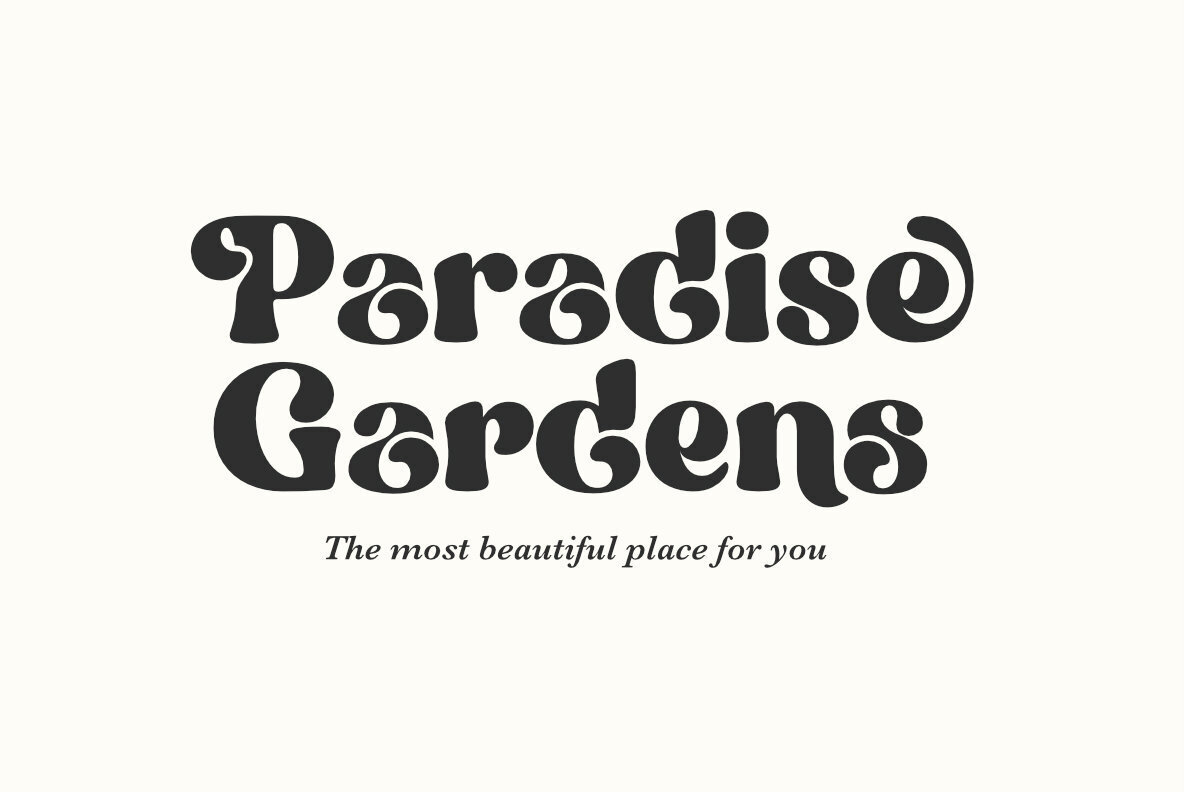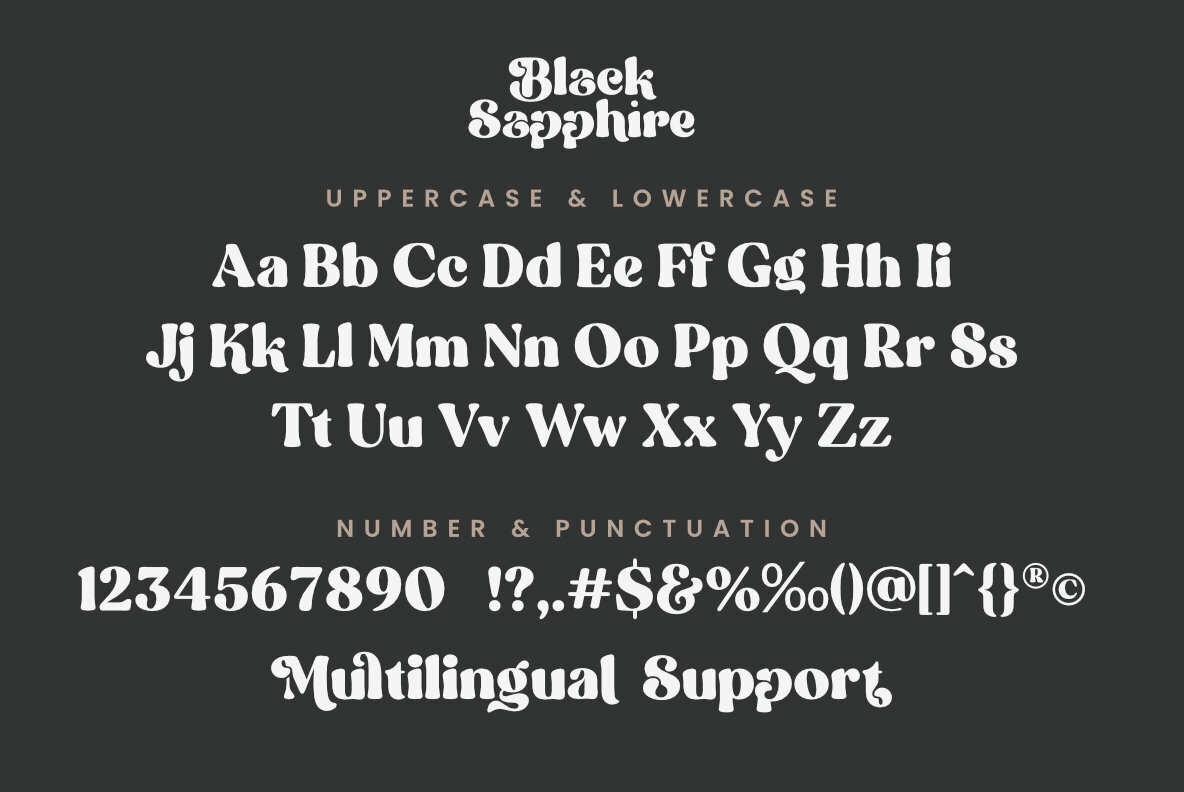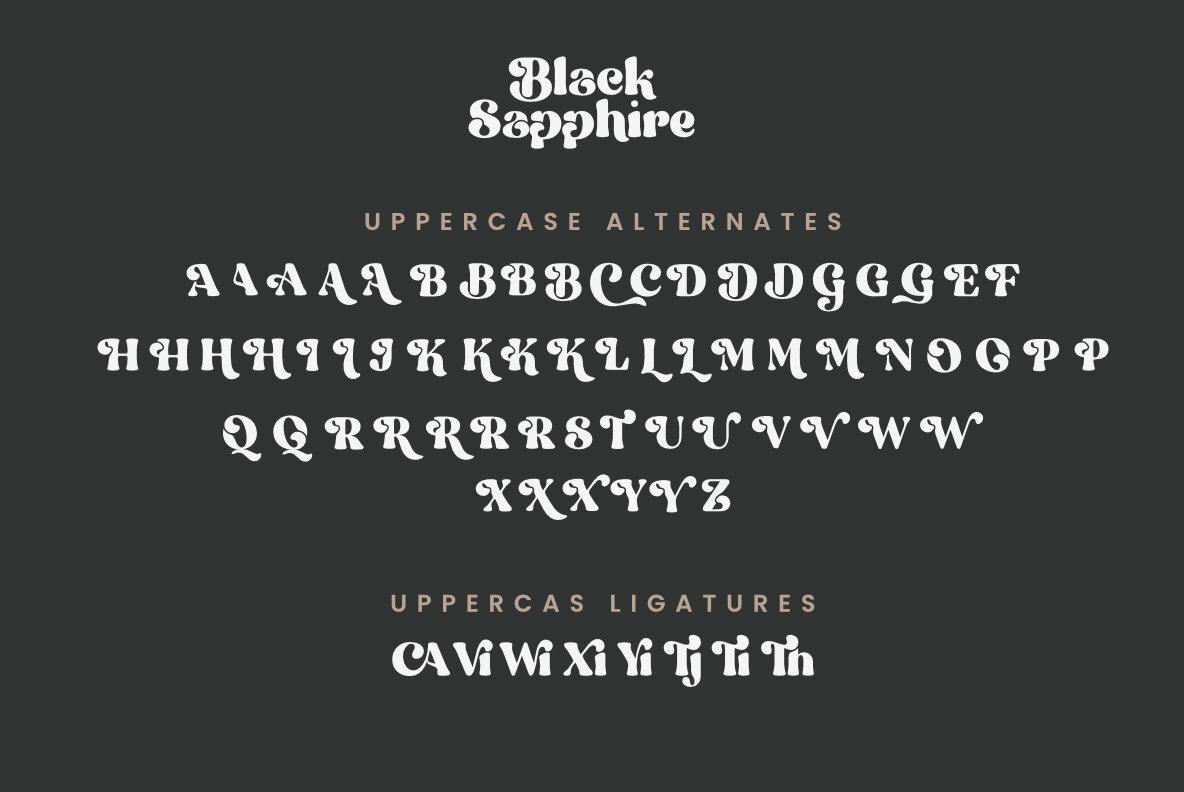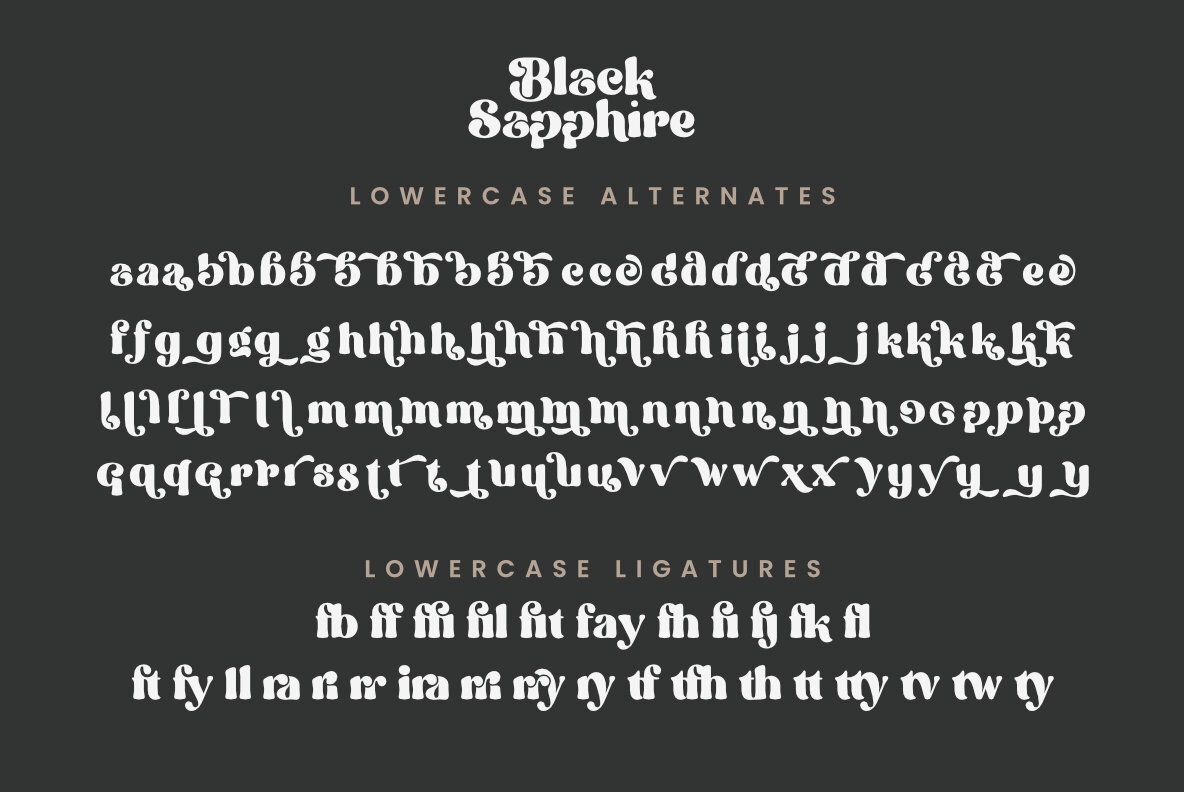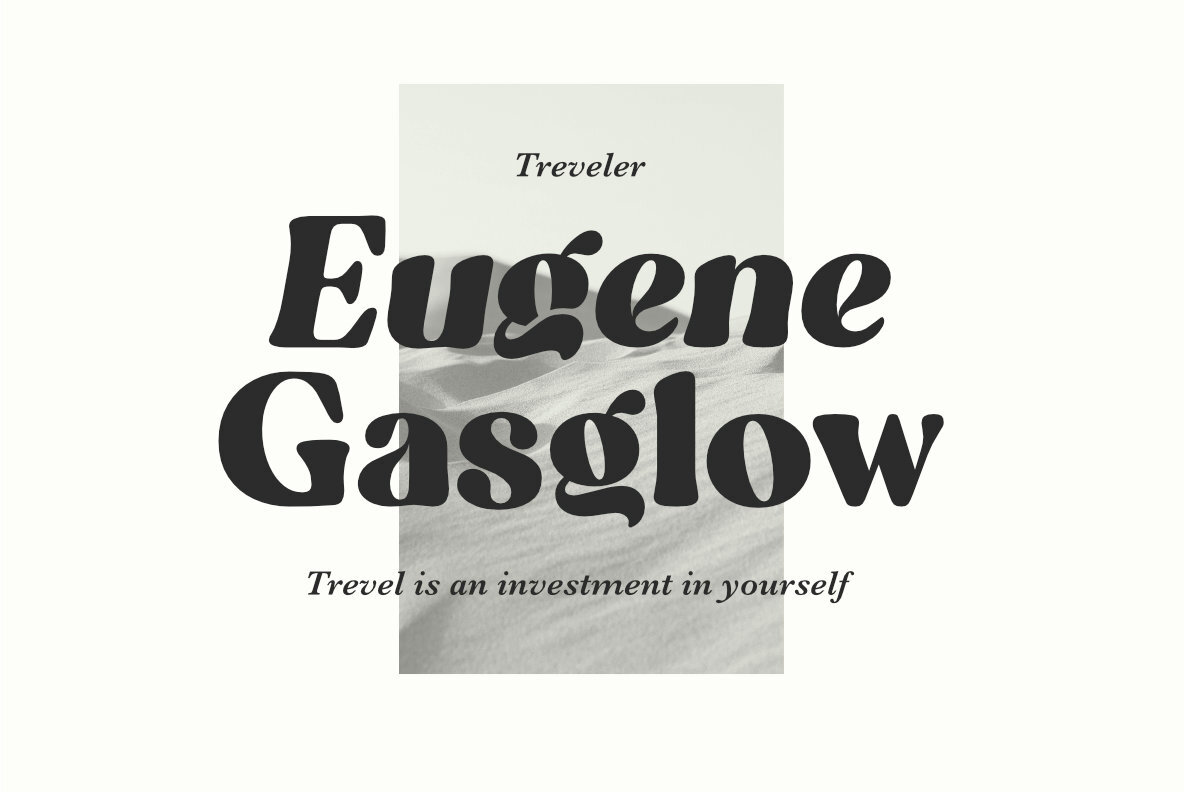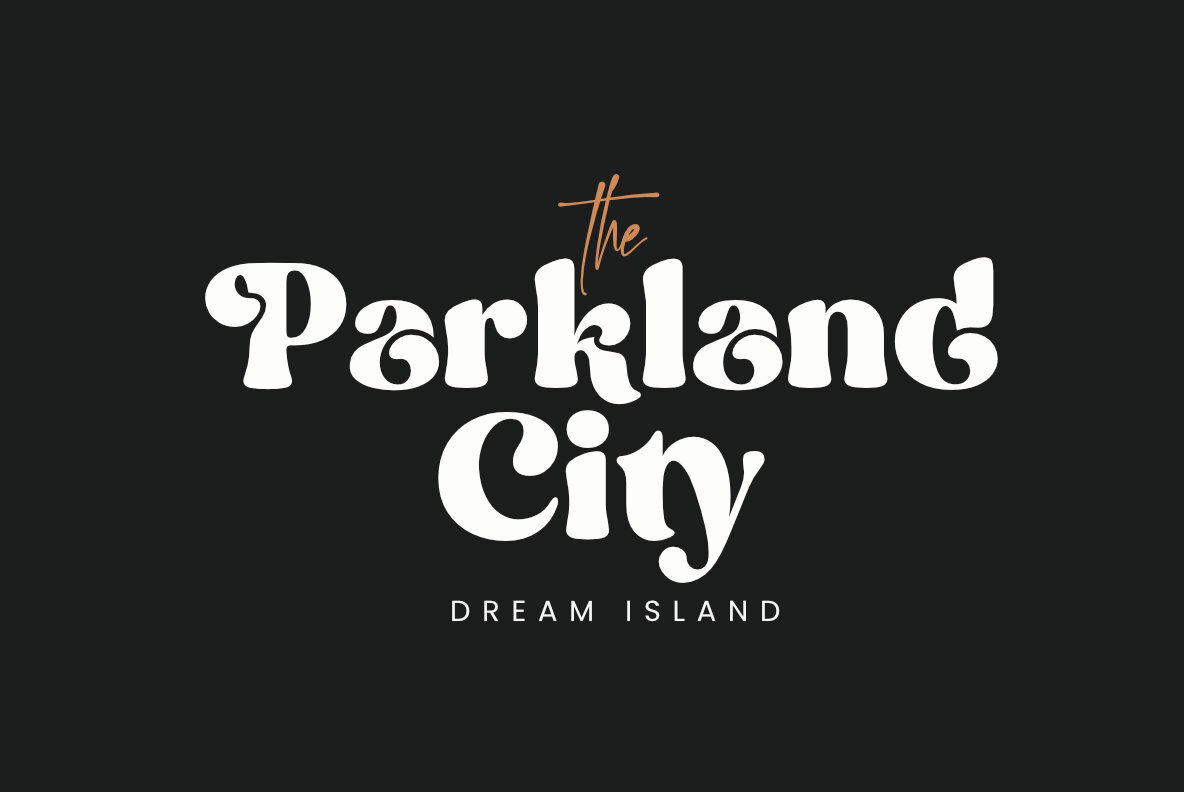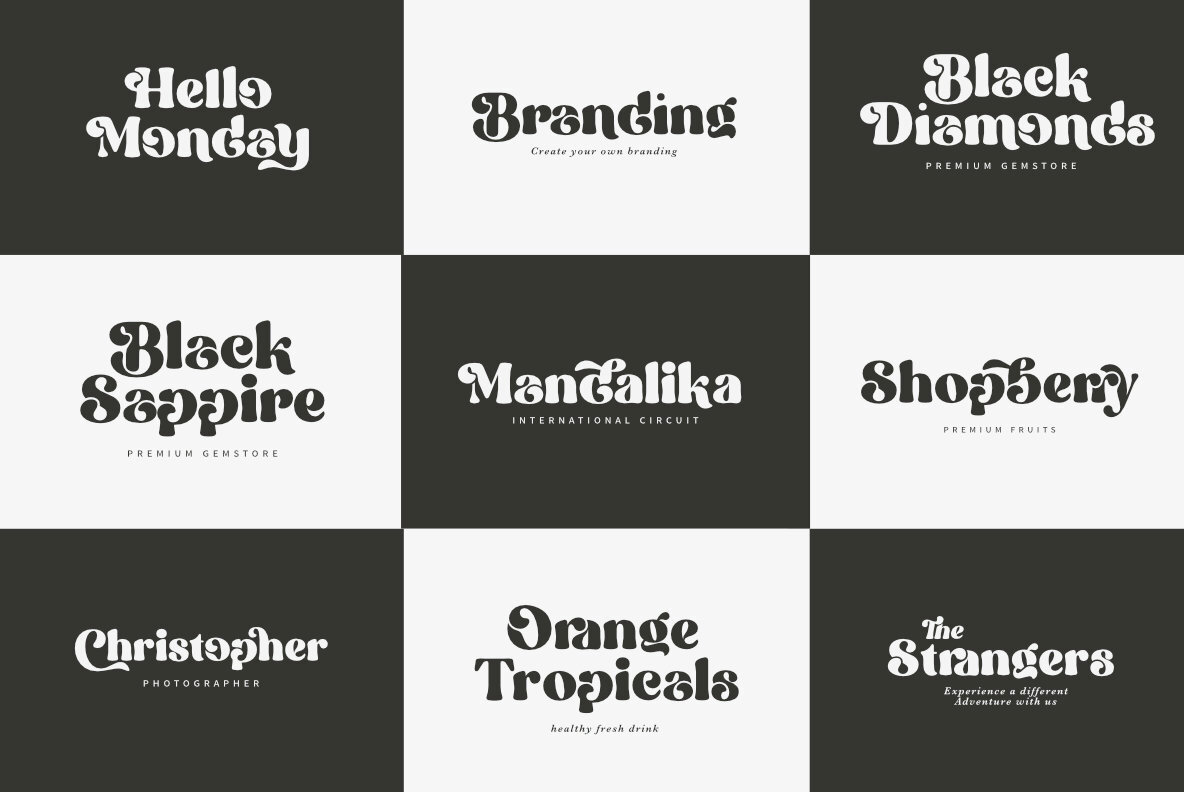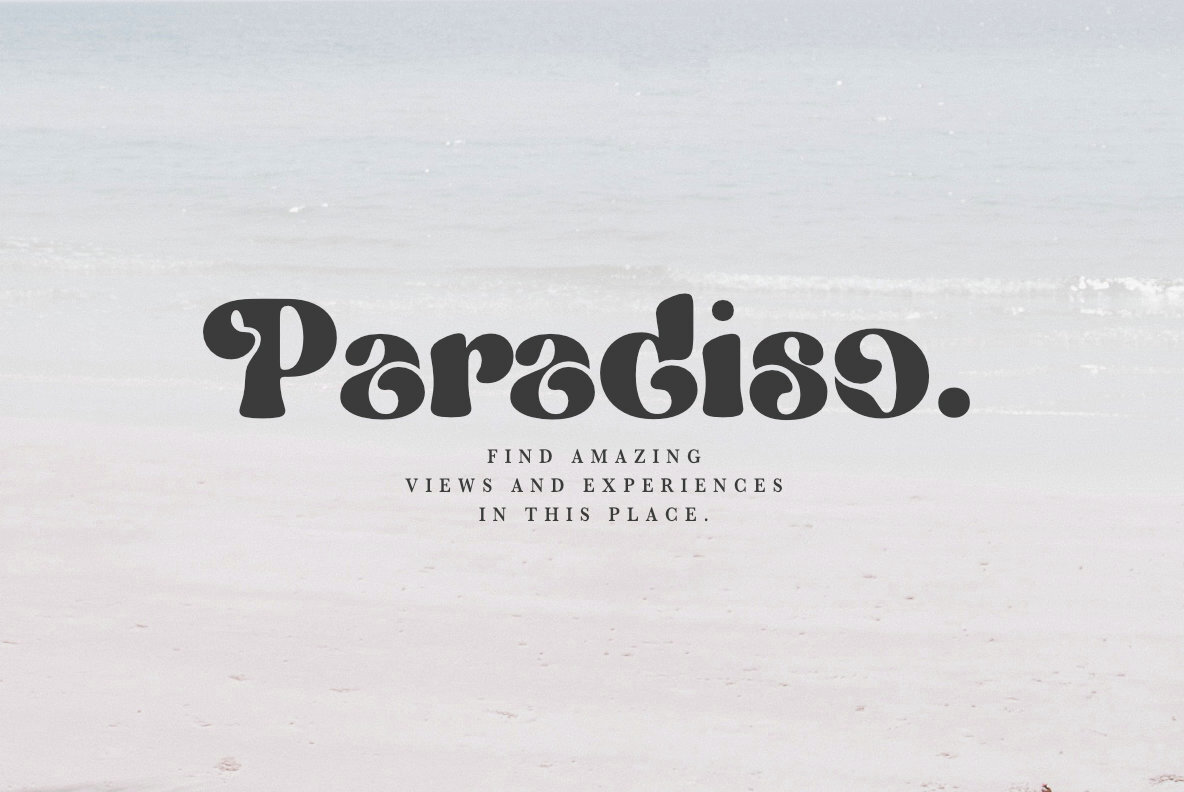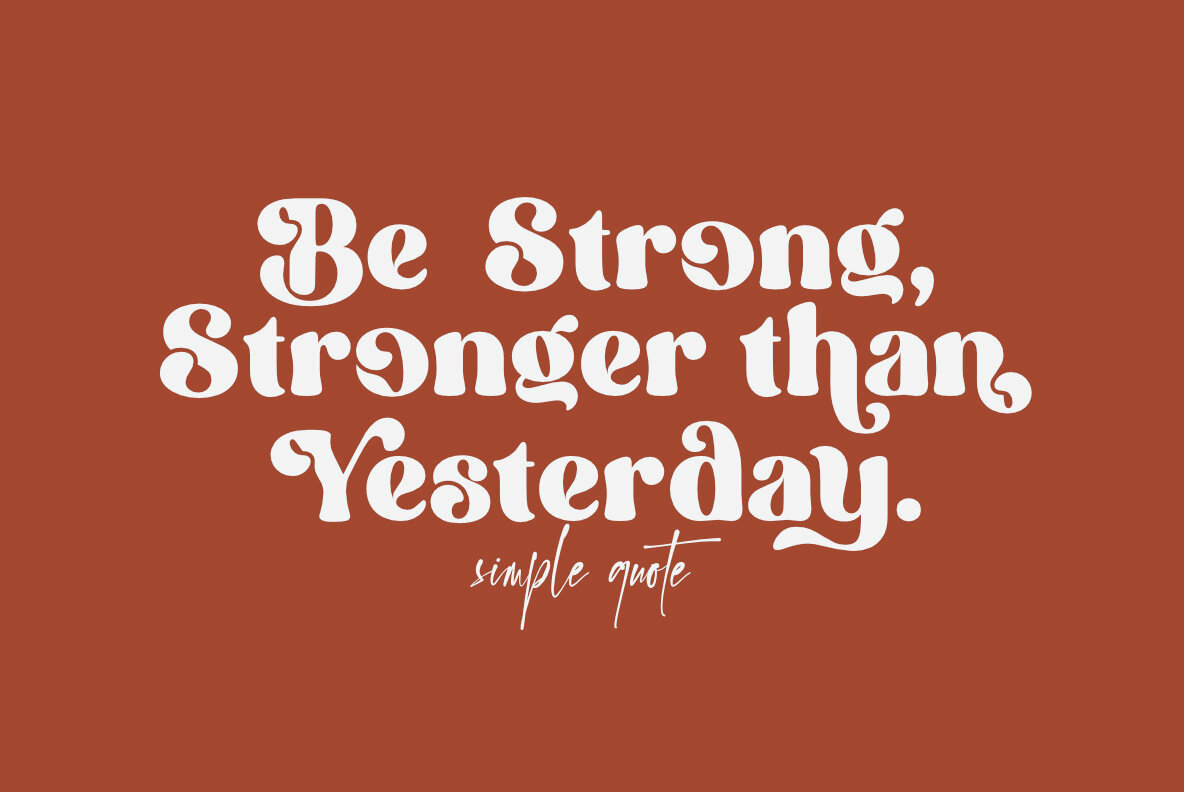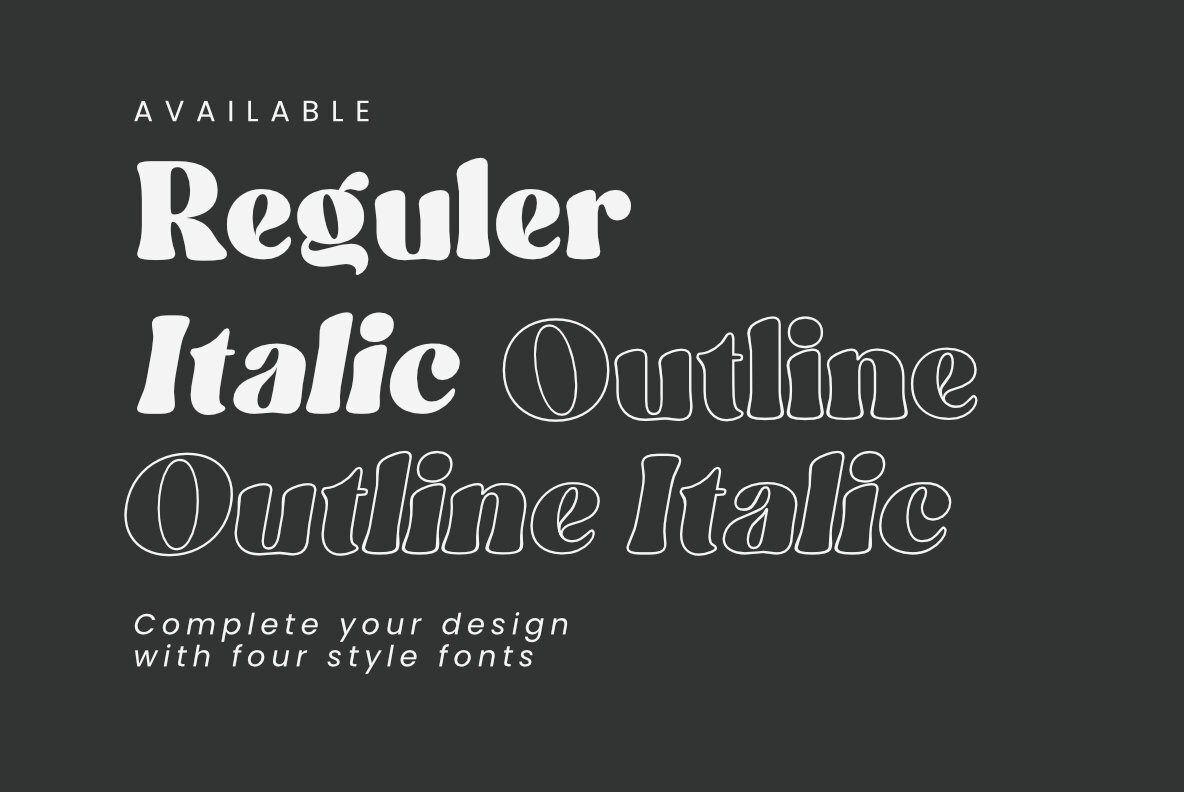
Black Shappire 1
Black Sapphire font is a modern font with a luxurious retro style, carefully crafted to produce the best product, there are 4 styles that you can use and mix to produce a unique, luxurious, and elegant design.
Black Sapphire consists of, Regular, Italic, Outline & Outline italic, combine and create your own design, plus a lot of uppercase and lowercase alternate letters will add to the uniqueness and luxury of the design you create.
Black Sapphire is perfect for Branding, logos, magazines, T-Shirt, mockups, Quotes, Posters, and more, try it yourself and create amazing designs with Black Sapphire font.